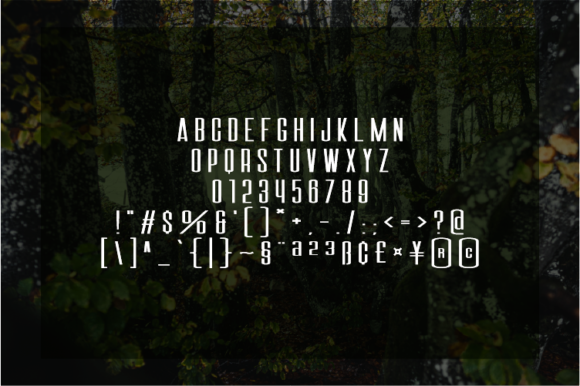
The Blockthin Font: A Designer’s New Best Friend
I still remember the design project that led me to discover the Blockthin font. I was working on a logo design for a new coffee shop, and I was struggling to find the perfect font. The client wanted something elegant, modern, and distinctive. I tried countless fonts, but none seemed to fit the bill. That’s when I stumbled upon Blockthin, and it was love at first sight! ✨
An Honest Review of Blockthin
- ✨ Elegant and sophisticated design: Blockthin has a unique blend of traditional and modern elements that make it stand out from other sans serif fonts.
- ✅ Versatility: This font is perfect for logos, branding, packaging design, and more.
- 💡 Legibility: Blockthin is incredibly clear and readable, even at small sizes.
While Blockthin is an amazing font, it’s not perfect. Here are a few things to keep in mind:
- 🤔 Limited italic options: Blockthin doesn’t have a traditional italic version, which might be a drawback for some designers.
- ⚠️ Not suitable for body text: While Blockthin is legible, it’s not designed for long blocks of text. It’s best used for headlines, titles, and short paragraphs.
The Story Behind Blockthin
Blockthin was designed by a team of typographers who wanted to create a font that blended traditional influences with modern sensibilities. The result is a font that’s both elegant and distinctive, with a unique character that’s perfect for logos, branding, and more.
- Q: What type of projects is Blockthin best suited for?
- A: Blockthin is perfect for logos, branding, packaging design, and more. It’s ideal for projects that require a touch of elegance and sophistication.
- Q: Can I use Blockthin for body text?
- A: While Blockthin is legible, it’s not designed for long blocks of text. It’s best used for headlines, titles, and short paragraphs.
- Q: Does Blockthin have OpenType features?
- A: Yes, Blockthin has a range of OpenType features, including Stylistic Alternates, Glyphs, and more.
- Q: Is Blockthin suitable for digital use?
- A: Absolutely! Blockthin is designed to be versatile and works beautifully on digital platforms, from websites to social media graphics.